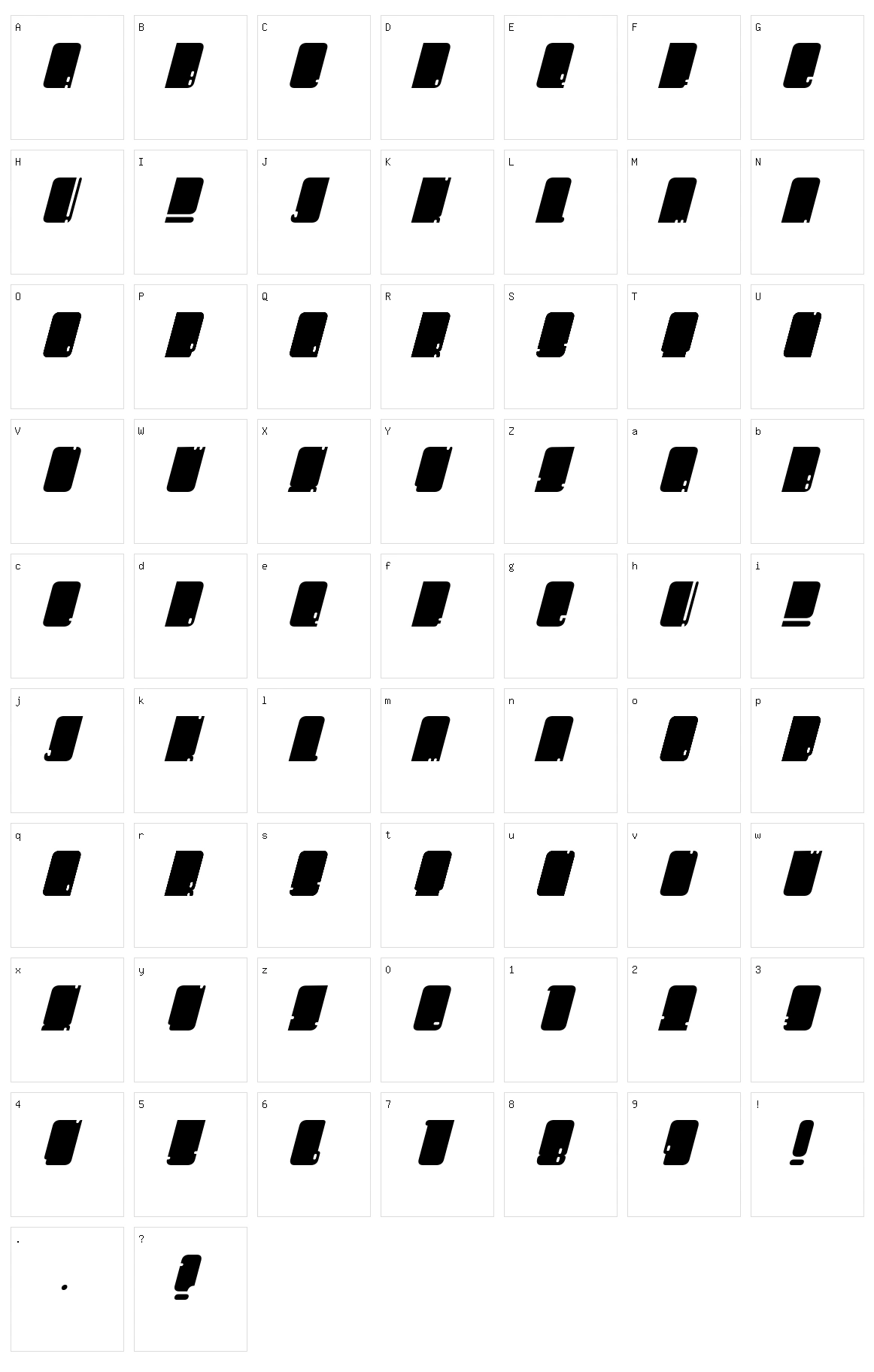
The free font Oh Mega Sigh is carefully designed by Matt Perkins, showcasing a thoughtful balance of creativity and usability and falls under the Groovy font style. When you download the ZIP file, it contains only 6.26 KB of font files, making it lightweight and quick to download. Please review the license details below to understand permitted usage and distribution rights. If license information is not available, we recommend using this font for personal projects only or contacting the author directly for commercial usage permissions.